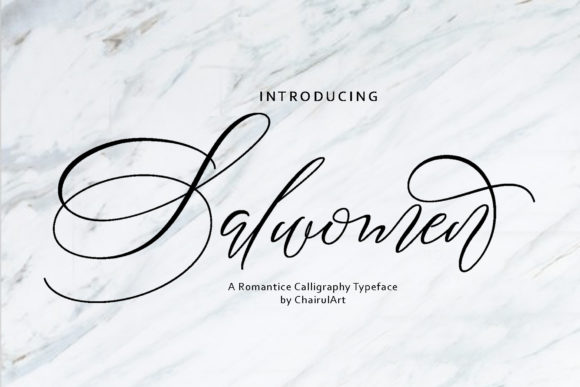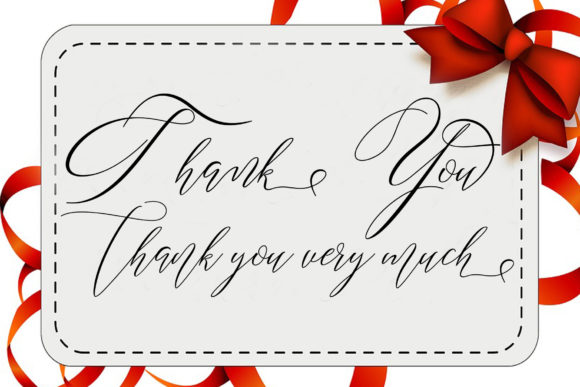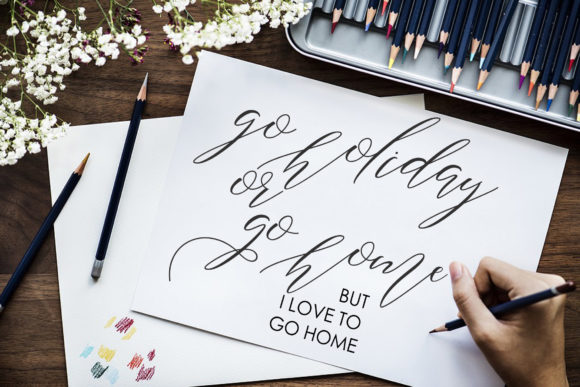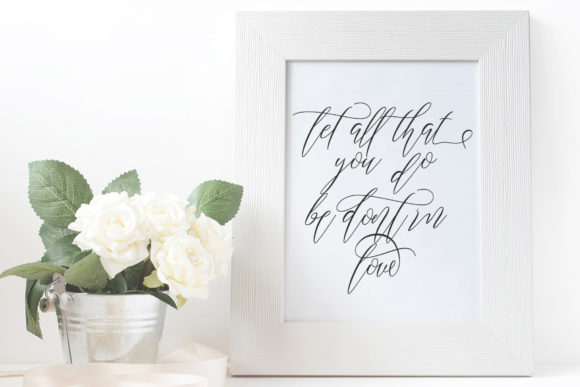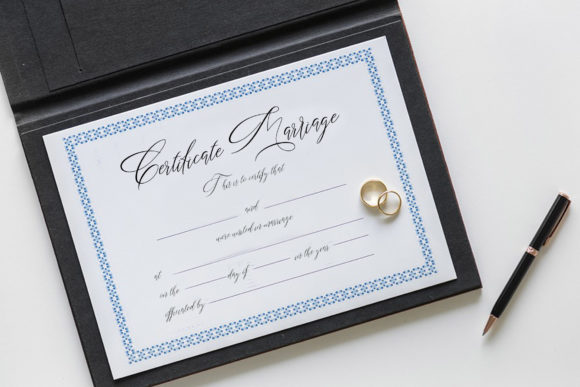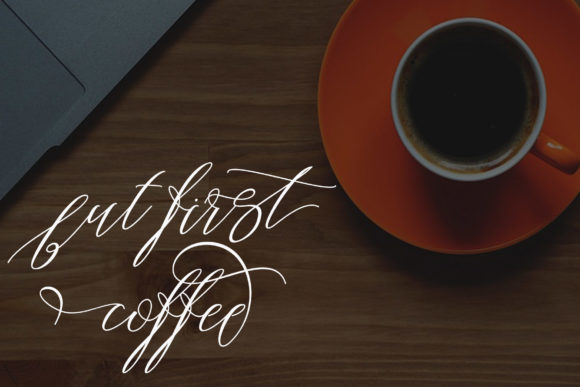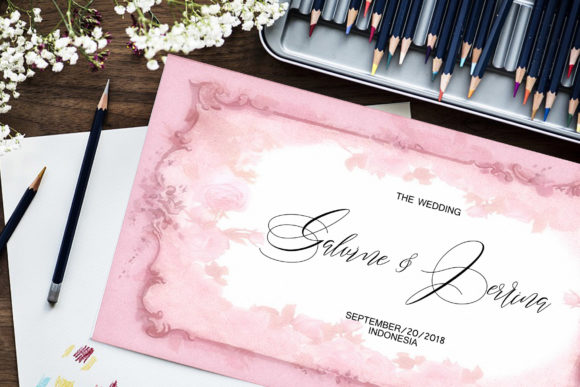
Salwomen Script Font
About Salwomen Script Font
The Salwomen is a modern script font. Every single letter has been carefully created to add a beautiful touch to your designs.
It’s modern style is perfect for invitations, greeting cards, posters, name cards, quotes, and much more!